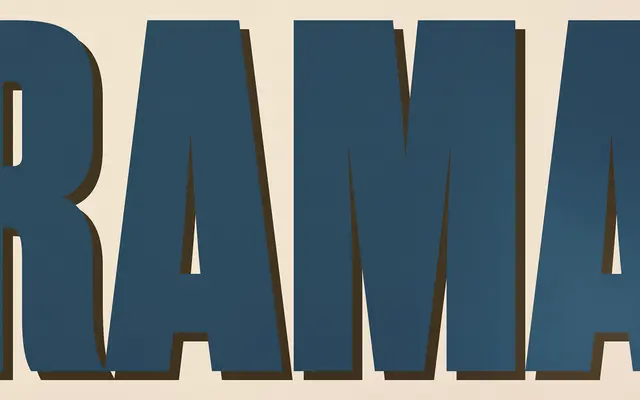
Rama Gothic specimen from Dharma Type
A condensed antiqued display sans built on 19th-century wood type references, spanning 18 styles for poster and headline work.
Drawn from the visual grammar of 19th-century wood type, each glyph is treated with an antiqued quality that calls back to the era of letterpress printing and Hamilton Manufacturing catalogues. The family runs to 18 styles with a consistently tight, condensed proportion suited to posters, titles and packaging where strong vertical rhythm is needed. A companion set, Gothic Extras, bundles period-appropriate borders, ornaments and frames at no cost.
A condensed antiqued sans serif explicitly inspired by 19th-century wood type, placing it firmly in the display category as a revival of wood type vernacular rather than a general-use grotesque.